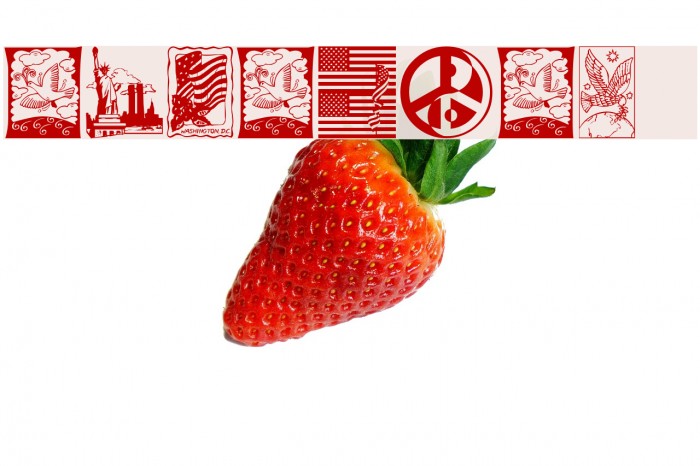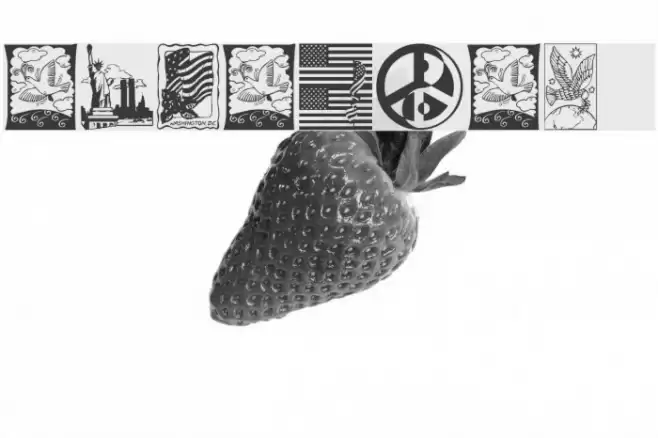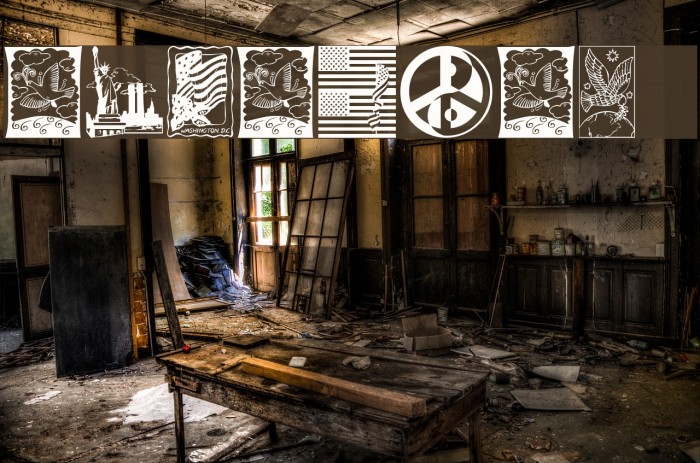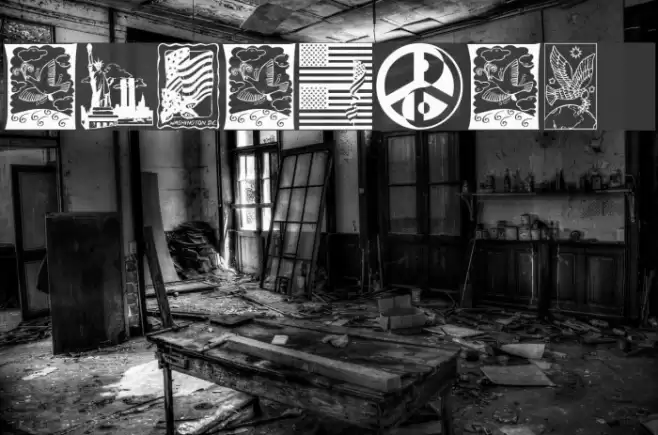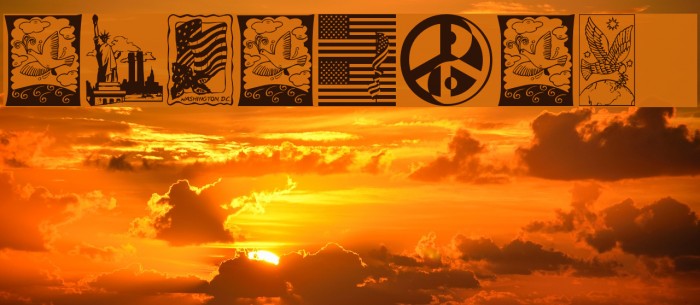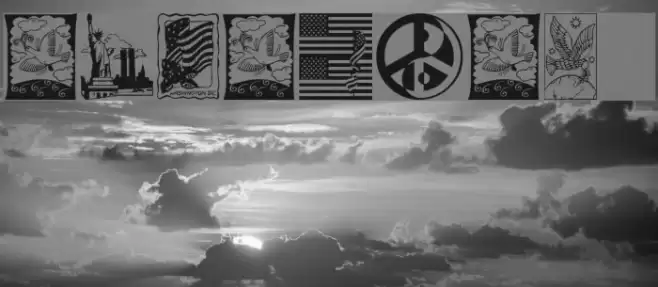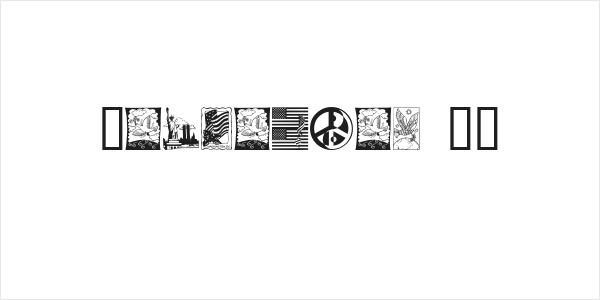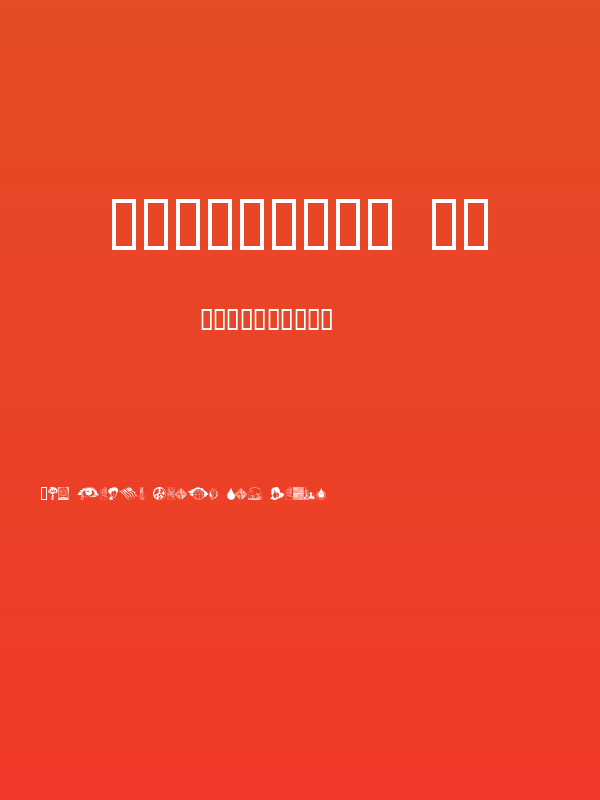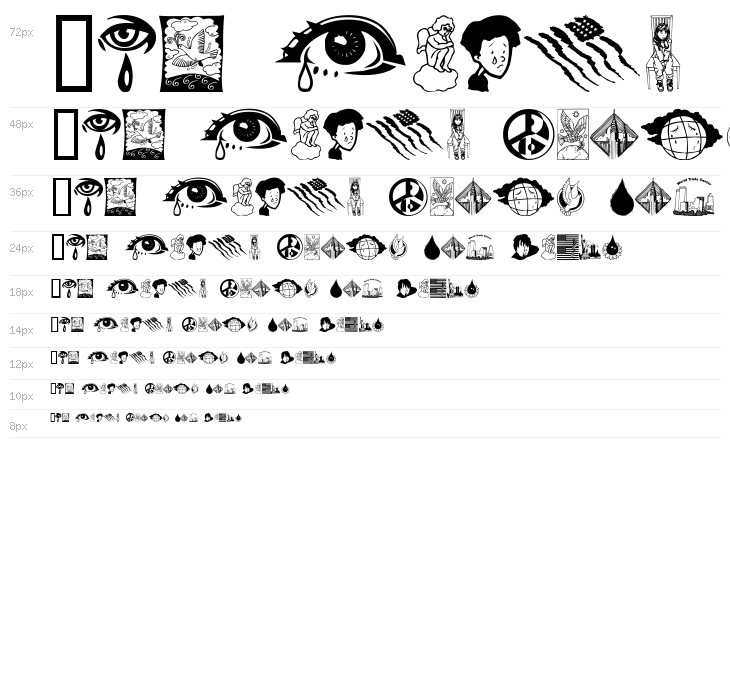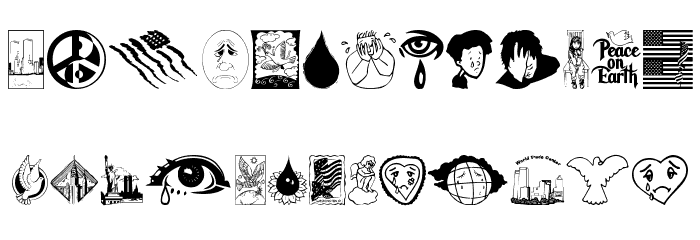
September 11 Font
September 11 Description
A decorative symbol font featuring various illustrations related to peace, remembrance, and emotions, including peace signs, American flags, crying faces, doves, and other themed icons. The glyphs are detailed and expressive, designed as pictograms rather than traditional letterforms.
| Overall Style | Decorative, Thematic |
| Use Case | Icons, Themed graphics, Posters |
| Proposed Projects | Memorial posters, awareness campaigns, educational materials, themed event graphics. |